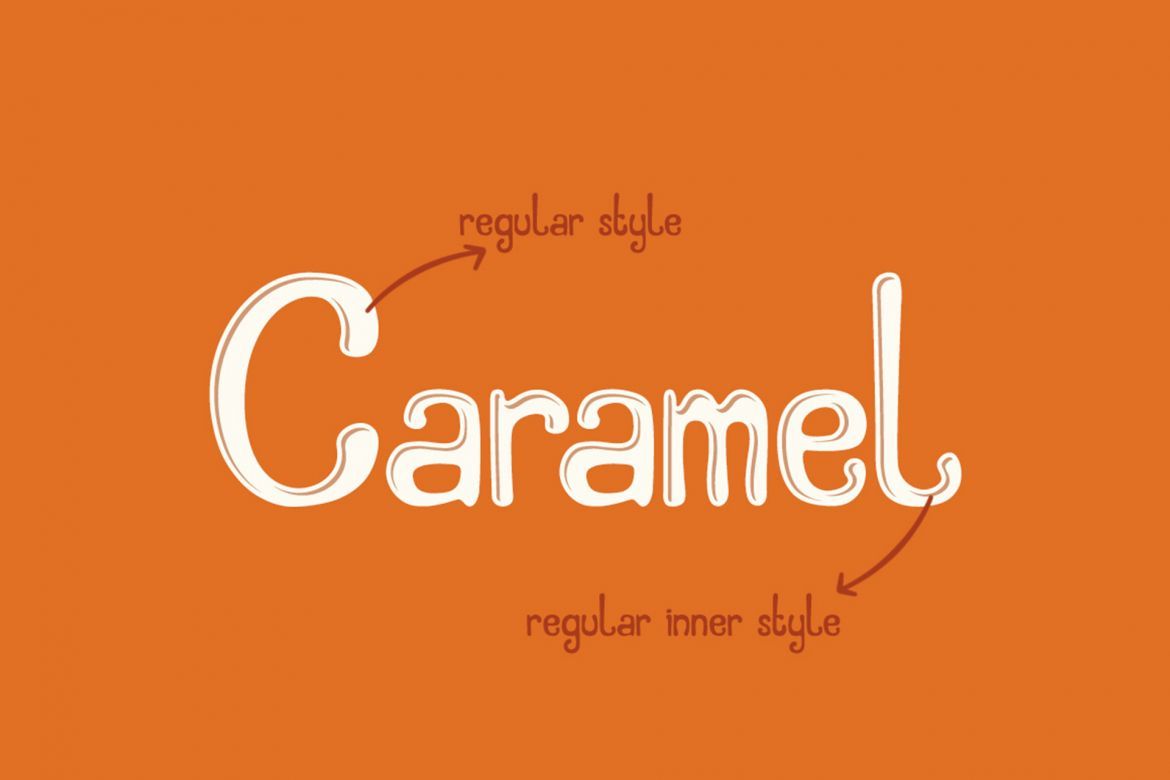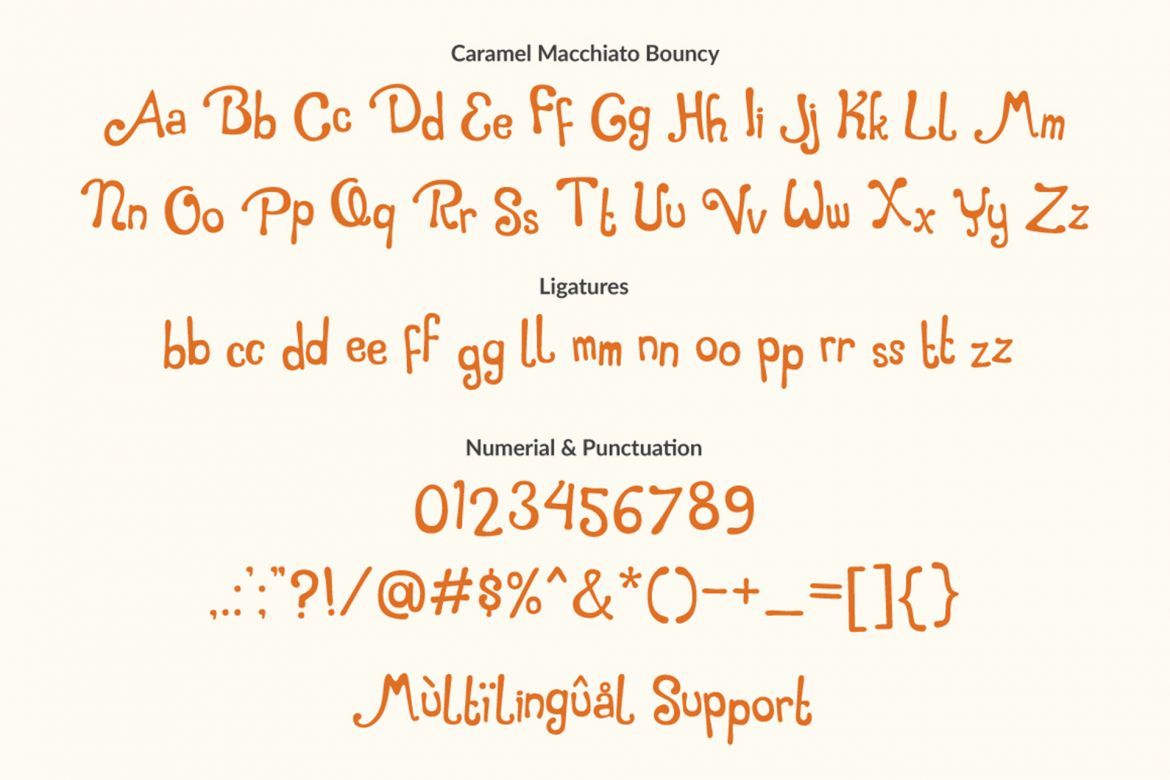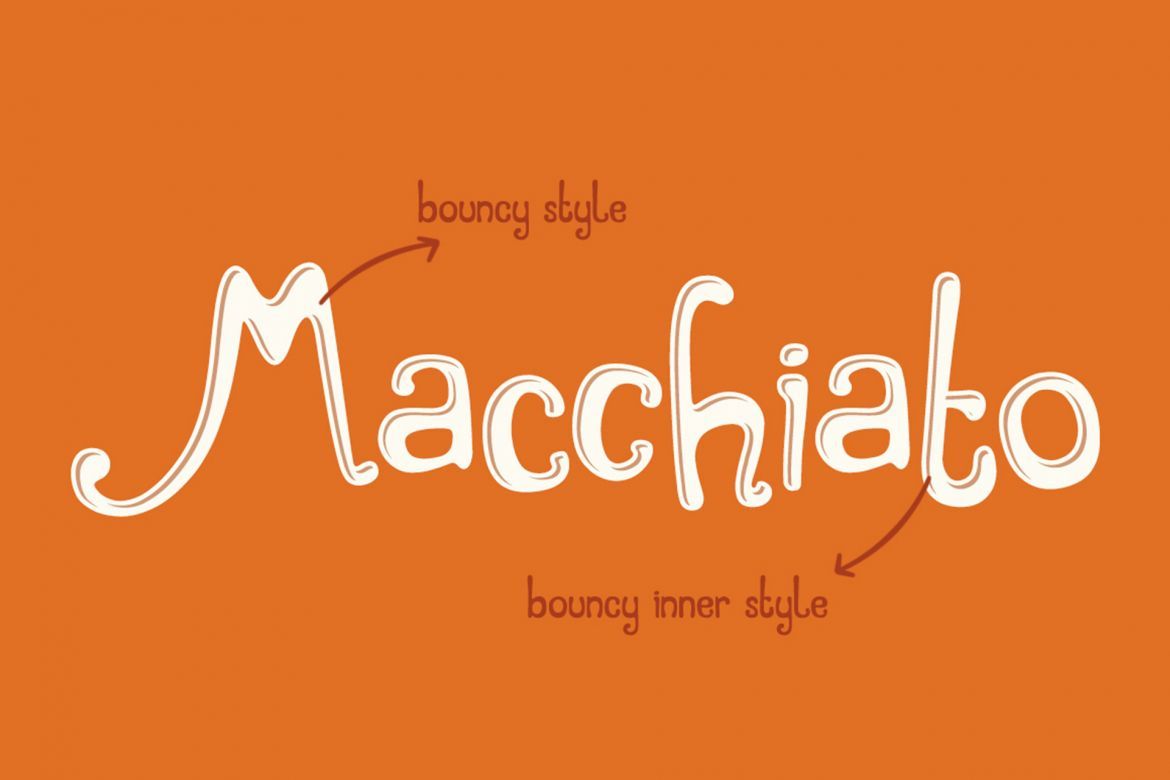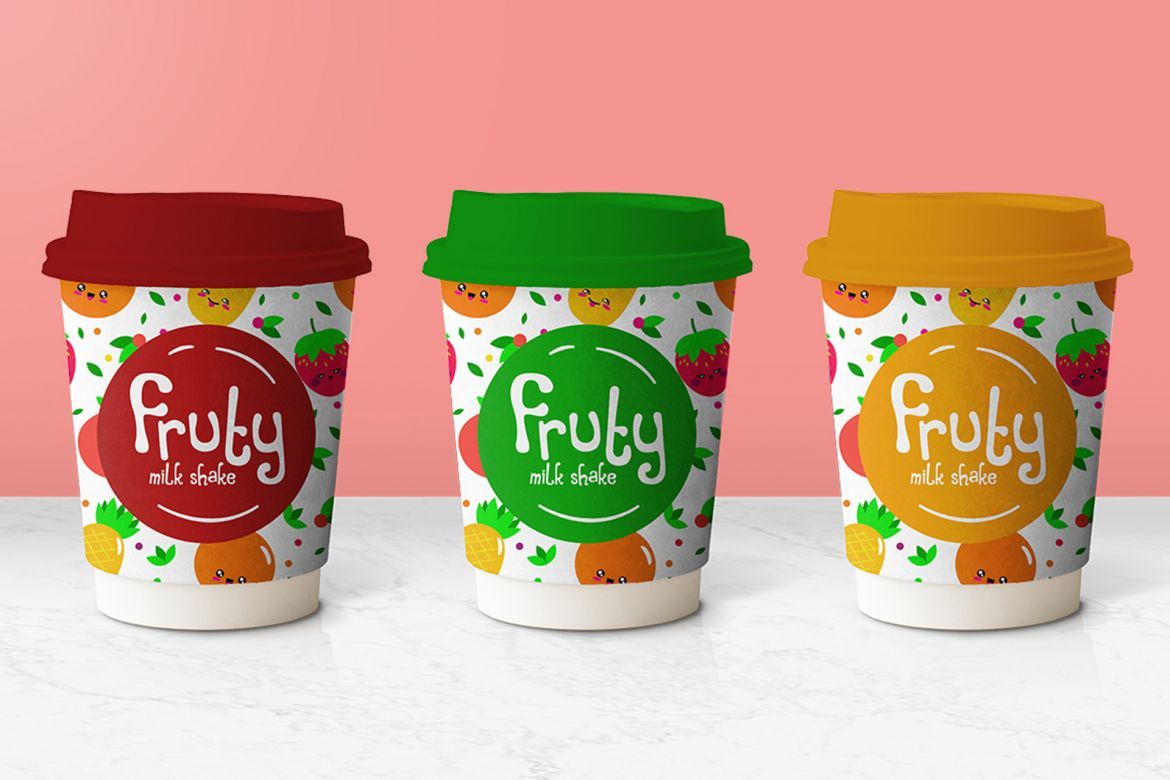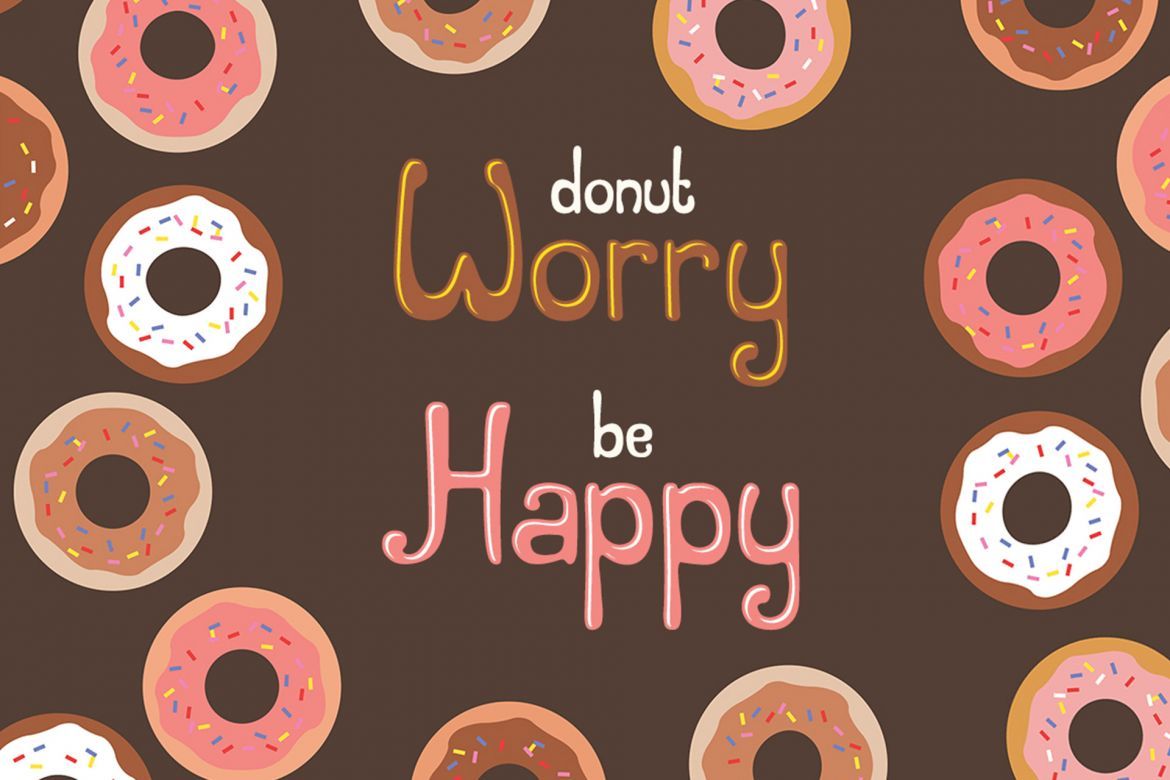
Caramel Macchiato Font
The Caramel Macchiato is a stylish display layered font. It has basic shape and inner shape. This font also came with two styles, regular style and bouncy style so it looks more cute and playful. You can use this font for any concept design project, such as fun & playful, happy, kids, birthday, party, teenager, and many other.
• different layer
• two font style